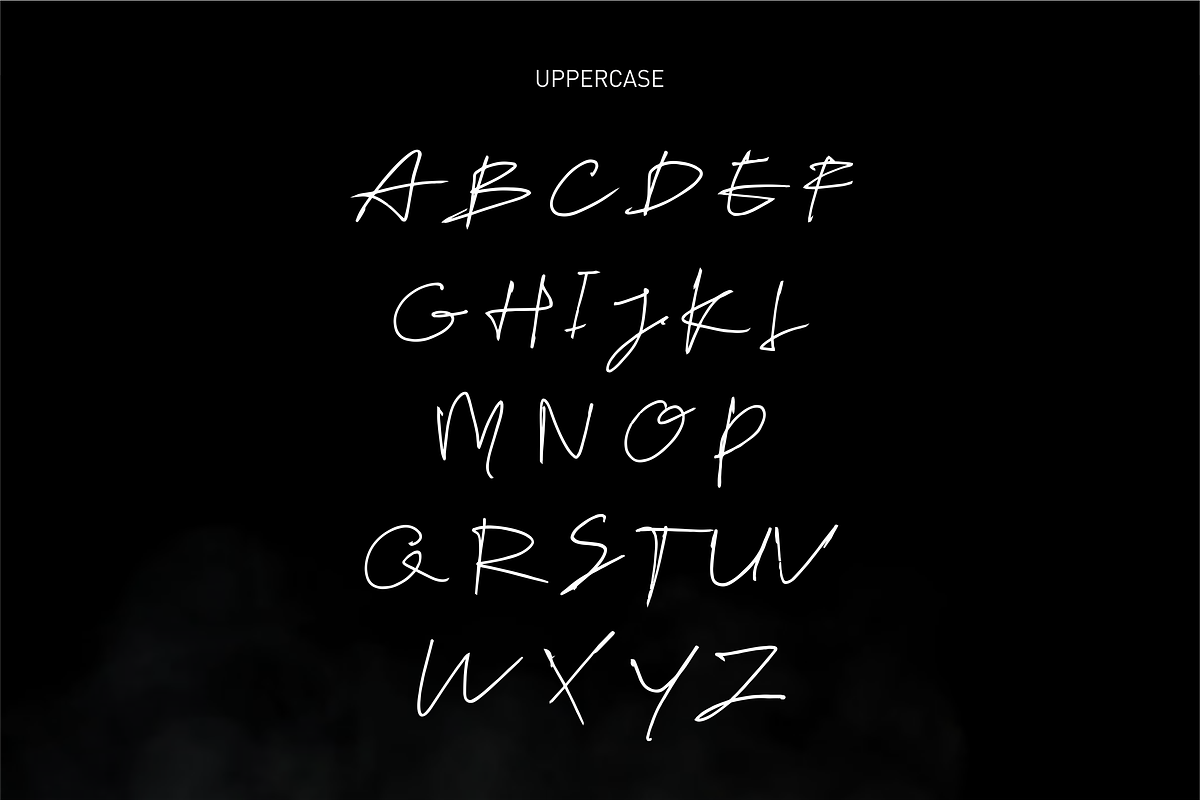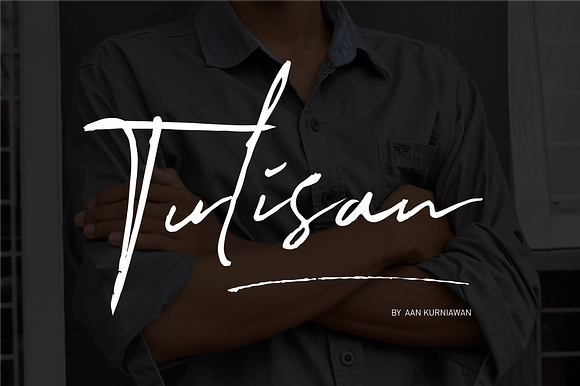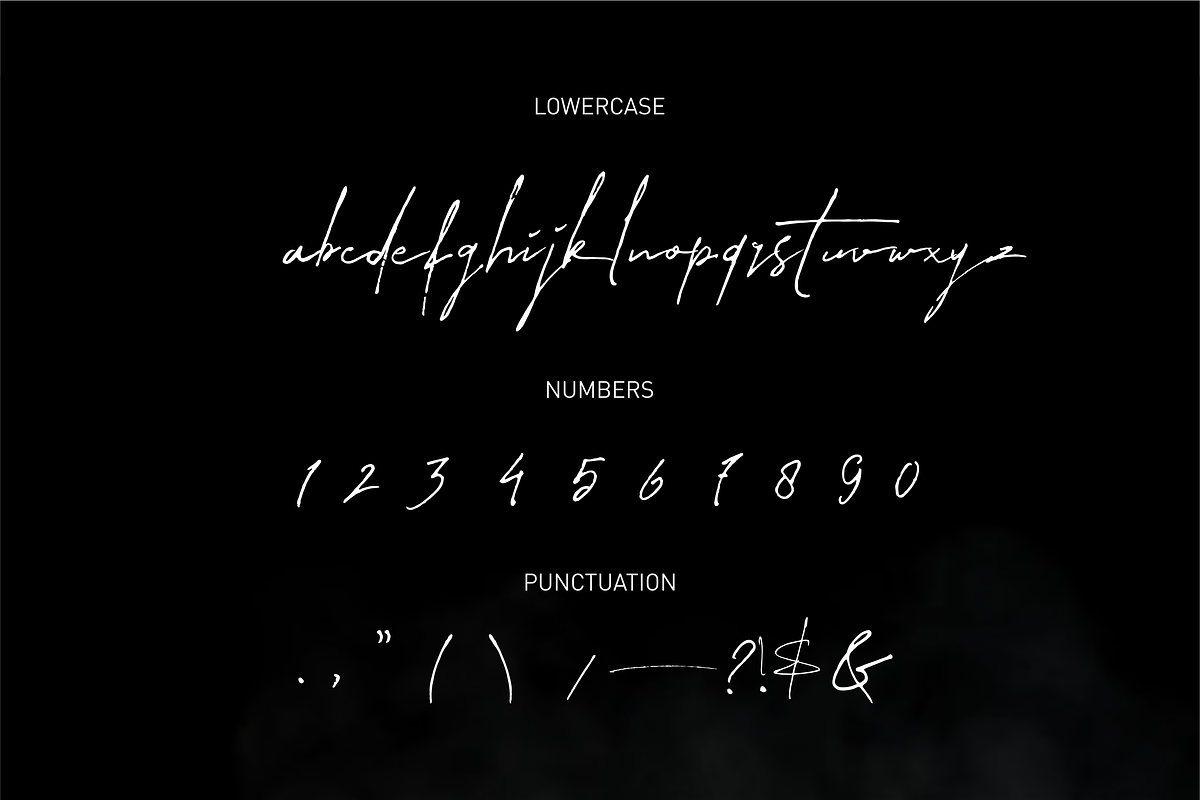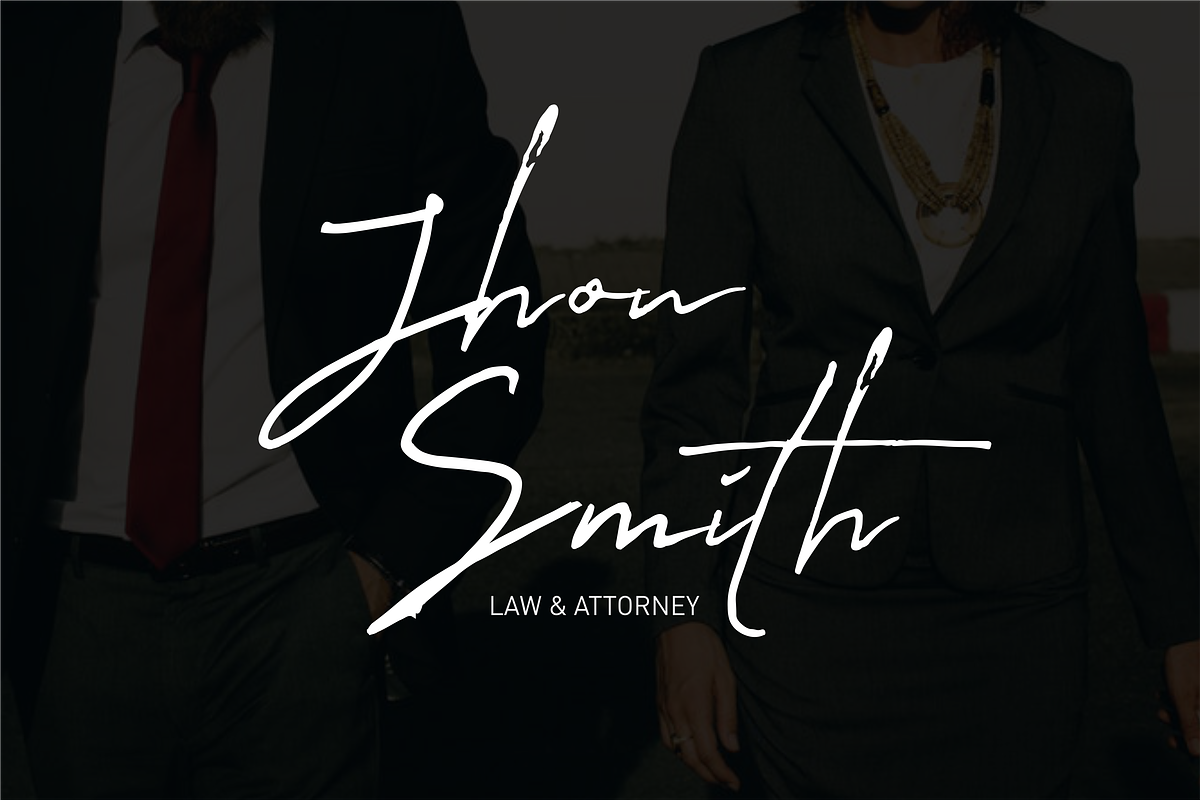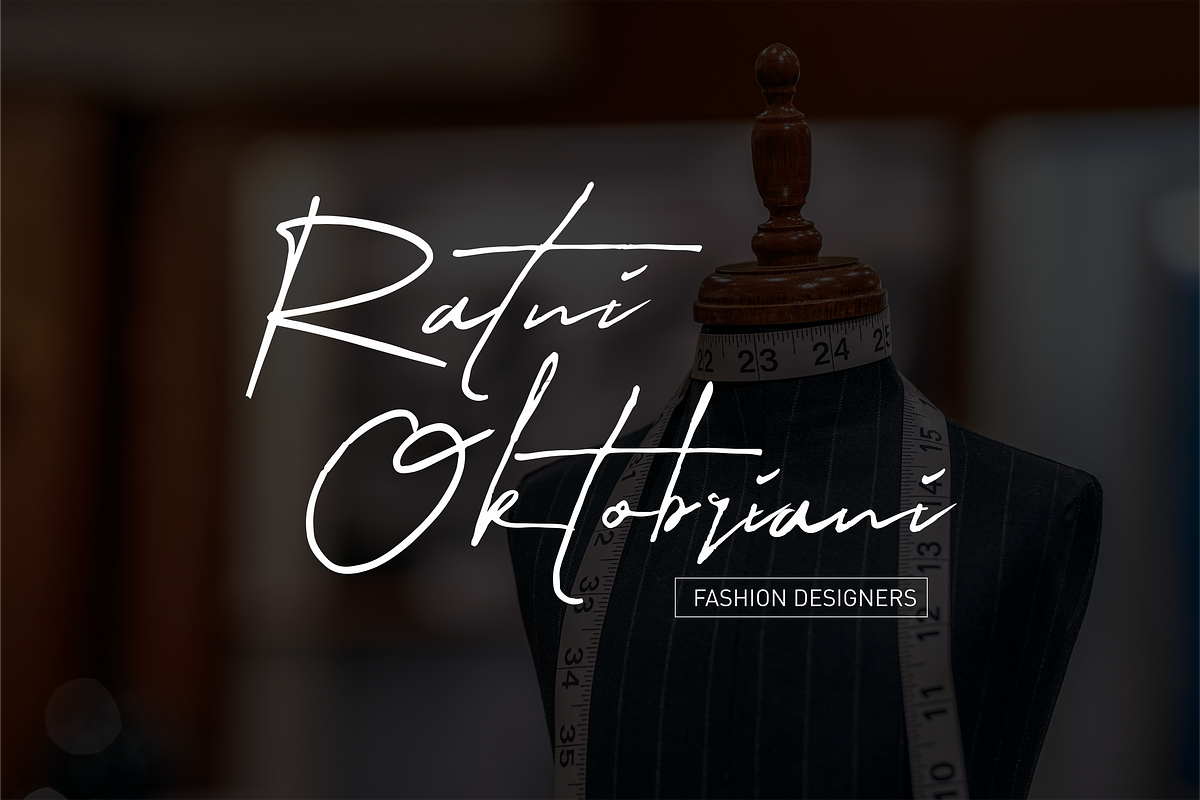
Tulisan ( Signature Font)
Tulisanku is Hand lettering font, suitable for signature and hand written manuscript, include script Font When Purchasing this fonts you will receive all file : Tulisanku.ttf and Tulisanku.otf.
Tulisan ( Signature Font) by Akdesain fits naturally into Branding, posters, packaging, typography.